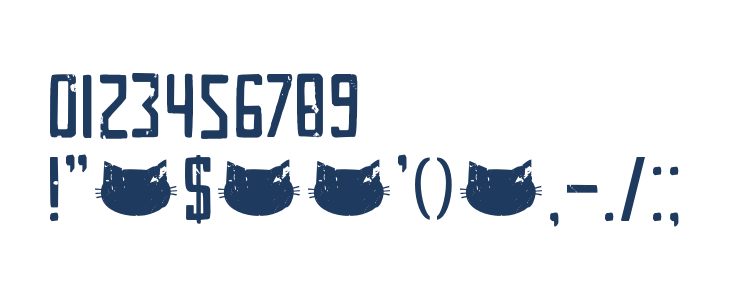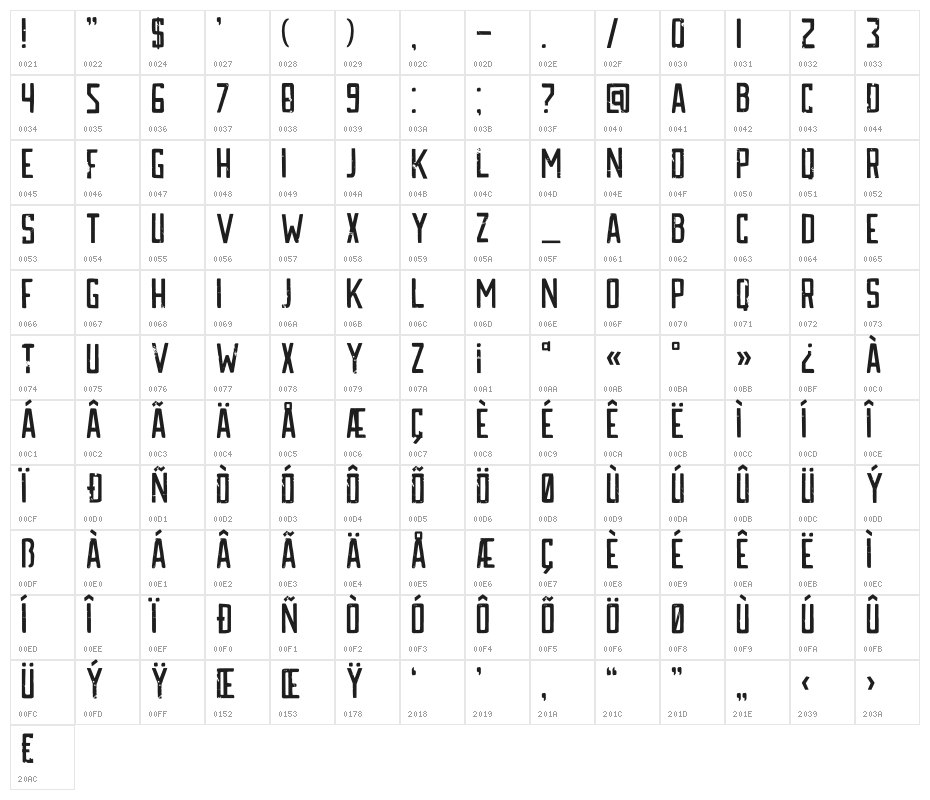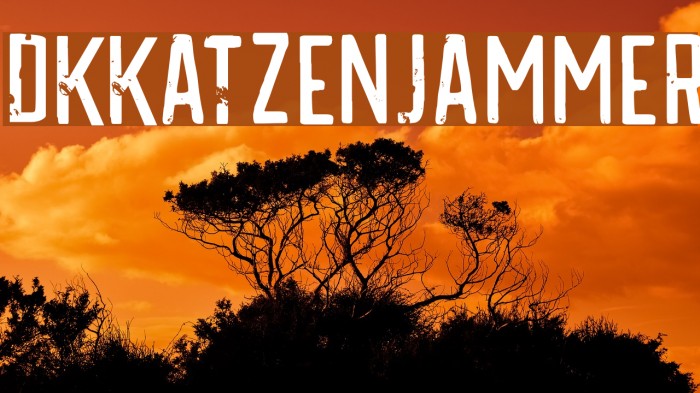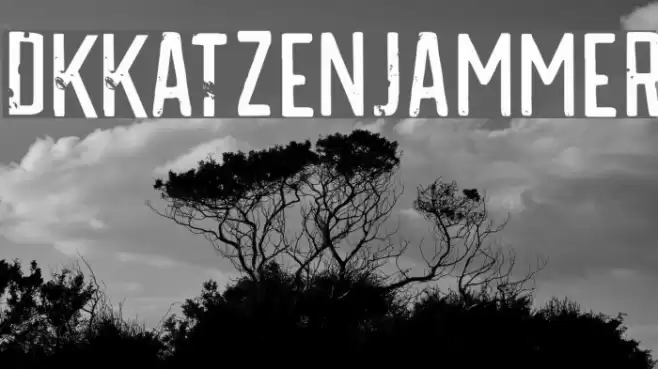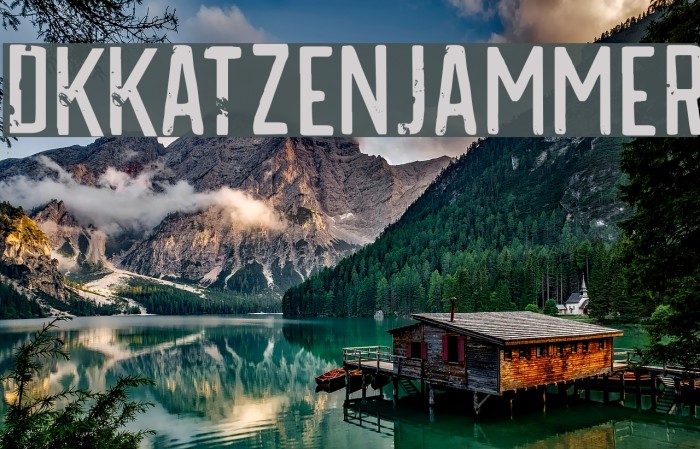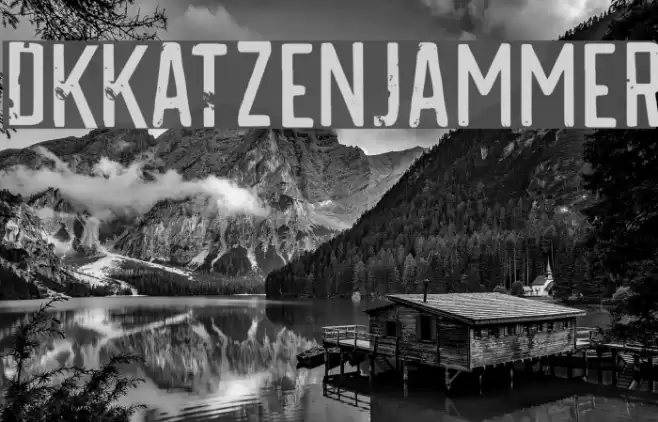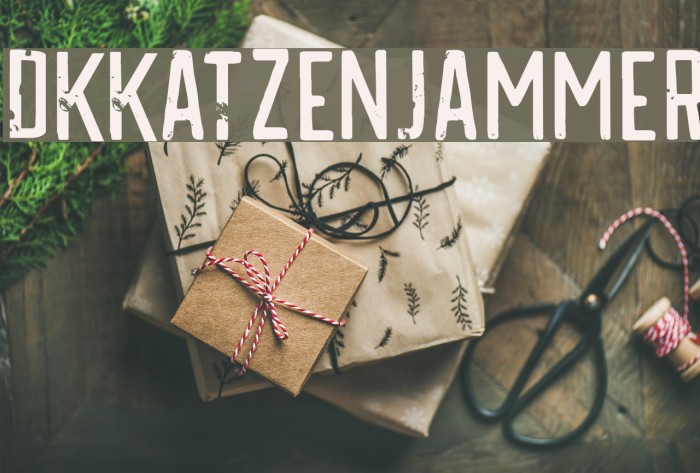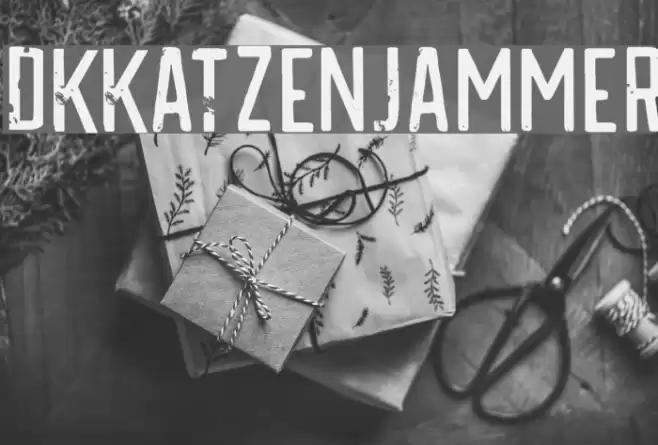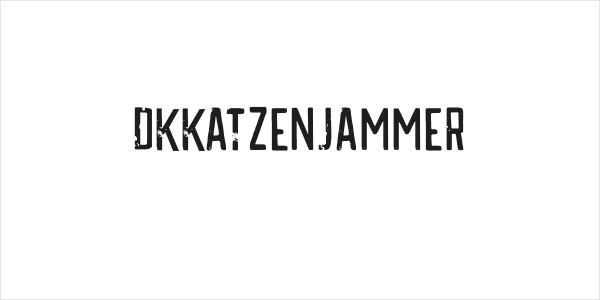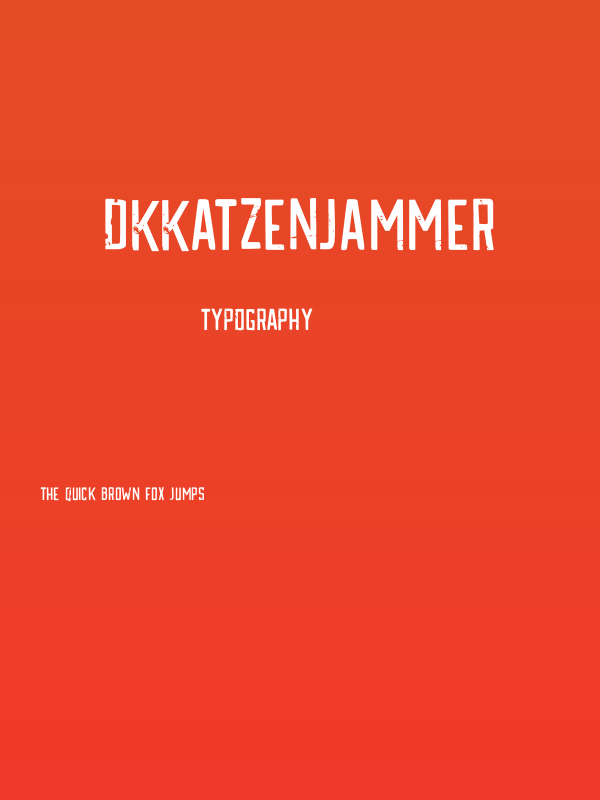
DKKatzenjammer Font
DKKatzenjammer Description
This font features a bold, distressed style with a rugged, worn appearance. The characters have a blocky, geometric structure, giving them a strong and impactful presence. The distressed texture adds a vintage, grunge aesthetic, making it ideal for projects that require a raw, edgy look. The uppercase and lowercase letters maintain a consistent width, while the numbers and special characters complement the overall design. The font's unique style is enhanced by the inclusion of playful cat icons, adding a whimsical touch. Its boldness and texture make it suitable for eye-catching headlines and creative designs.
| Overall Style | Vintage, Grunge |
| Proposed Projects | Ideal for posters, album covers, t-shirt designs, and other creative projects requiring a bold, edgy look. |